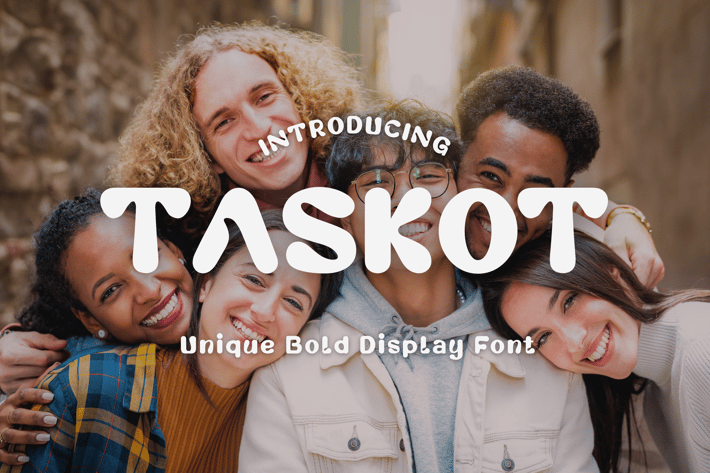
Taskot | Unique Bold Display Font
For your creative project, use the Taskot-themed Unique Bold Display typeface. Unique bold display typeface is appropriate for every kind of design you produce, including greeting cards, posters, logos, and branding.